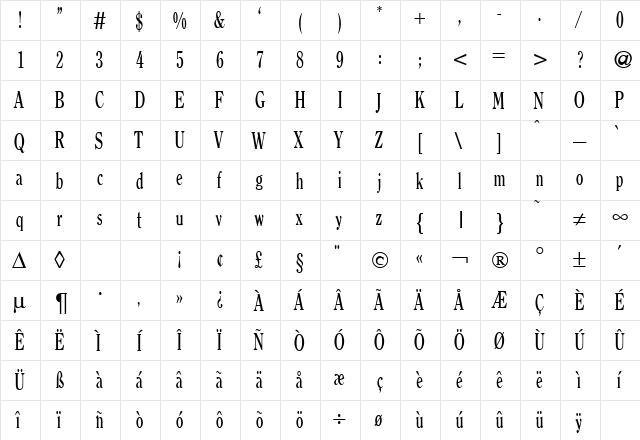
ClearfaceOldStyleCond Regular
Design Context for ClearfaceOldStyleCond Typeface
ClearfaceOldStyleCond brings classic typographic sensibility to the table — its serifs and measured letterforms reflect centuries of print heritage. Its narrow stance lets it pack a punch even in space-constrained designs.
Pro Tip: Set ClearfaceOldStyleCond with slightly loose tracking in headlines to let each letterform's detail read clearly at display sizes.